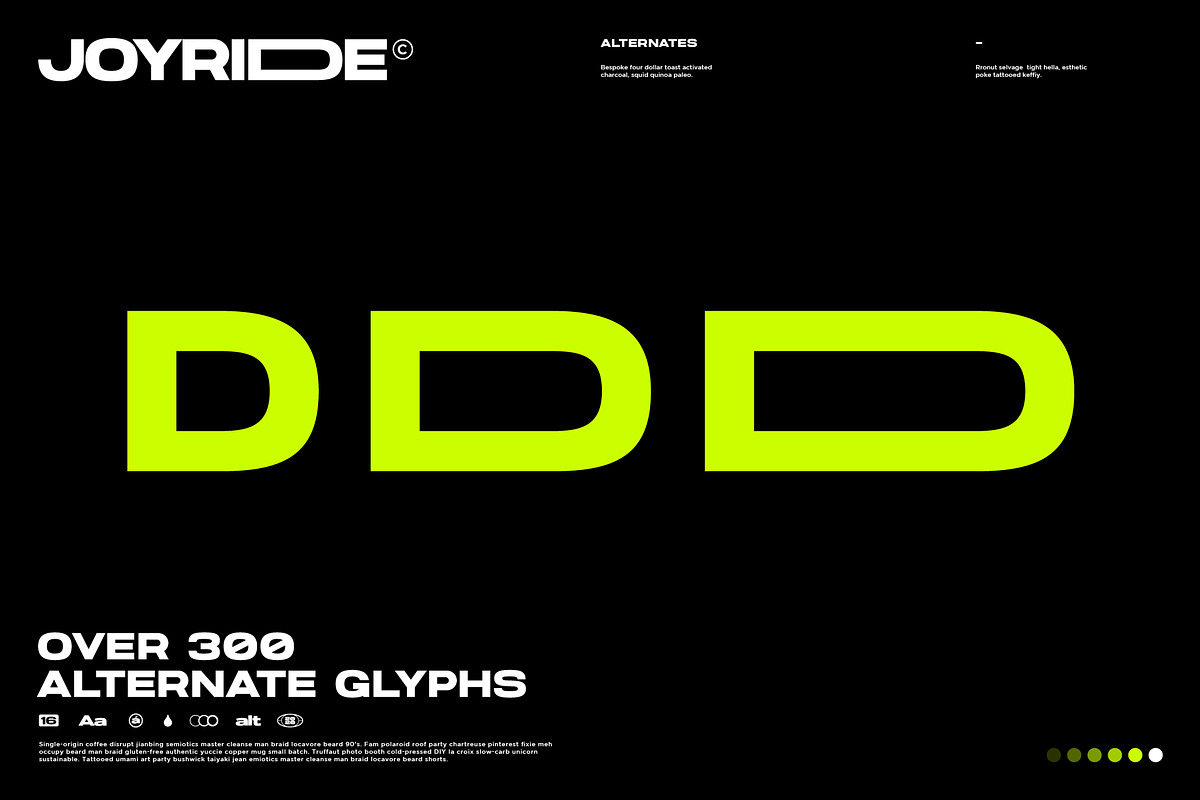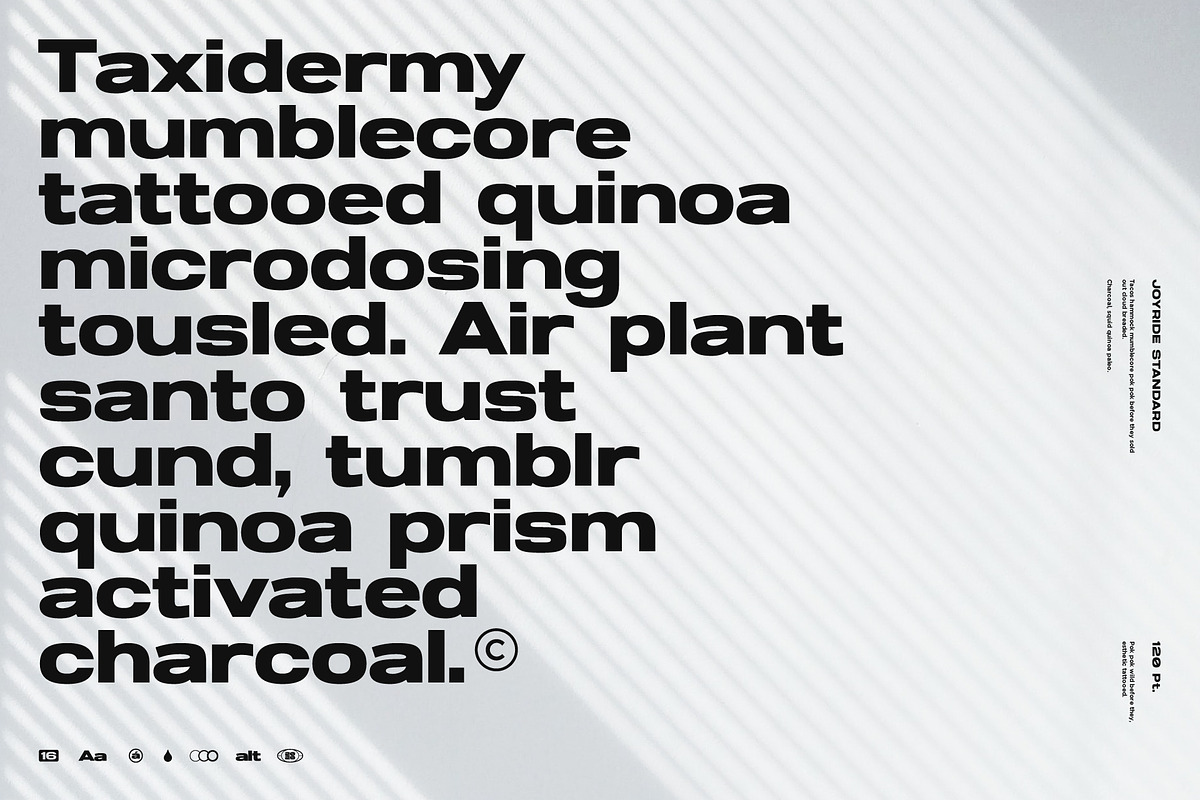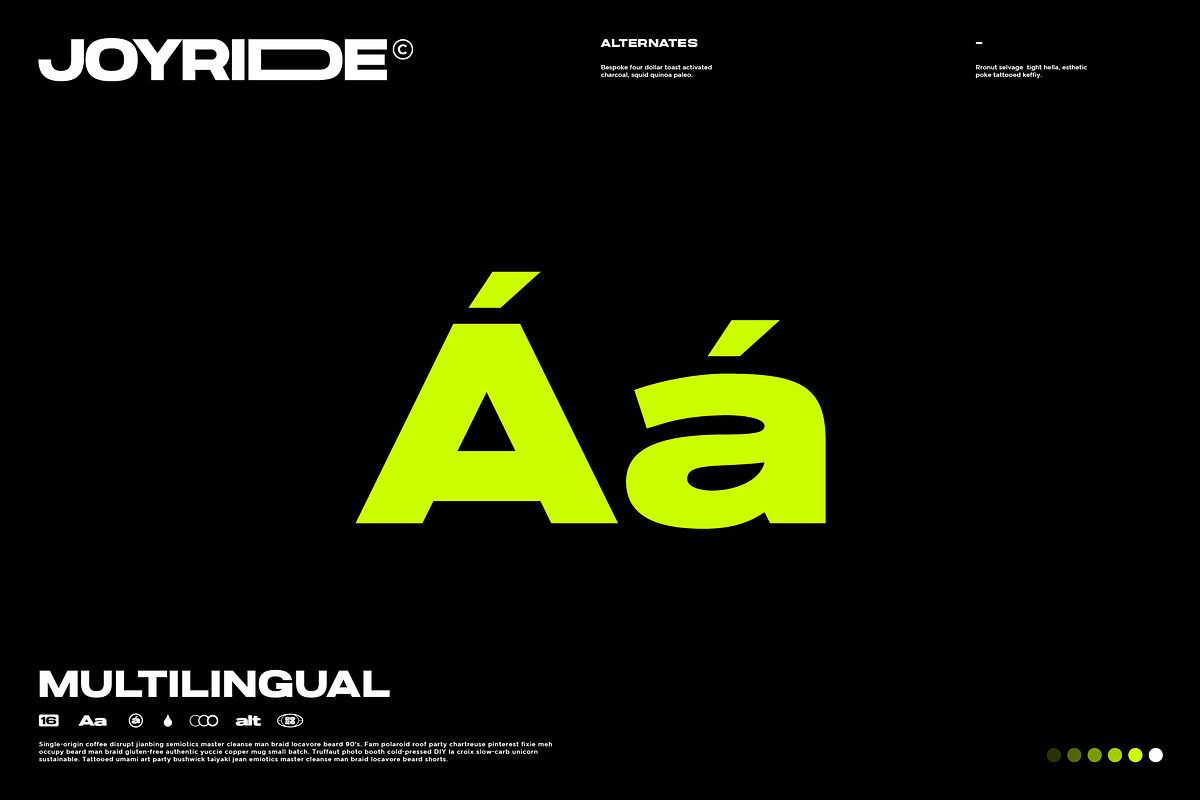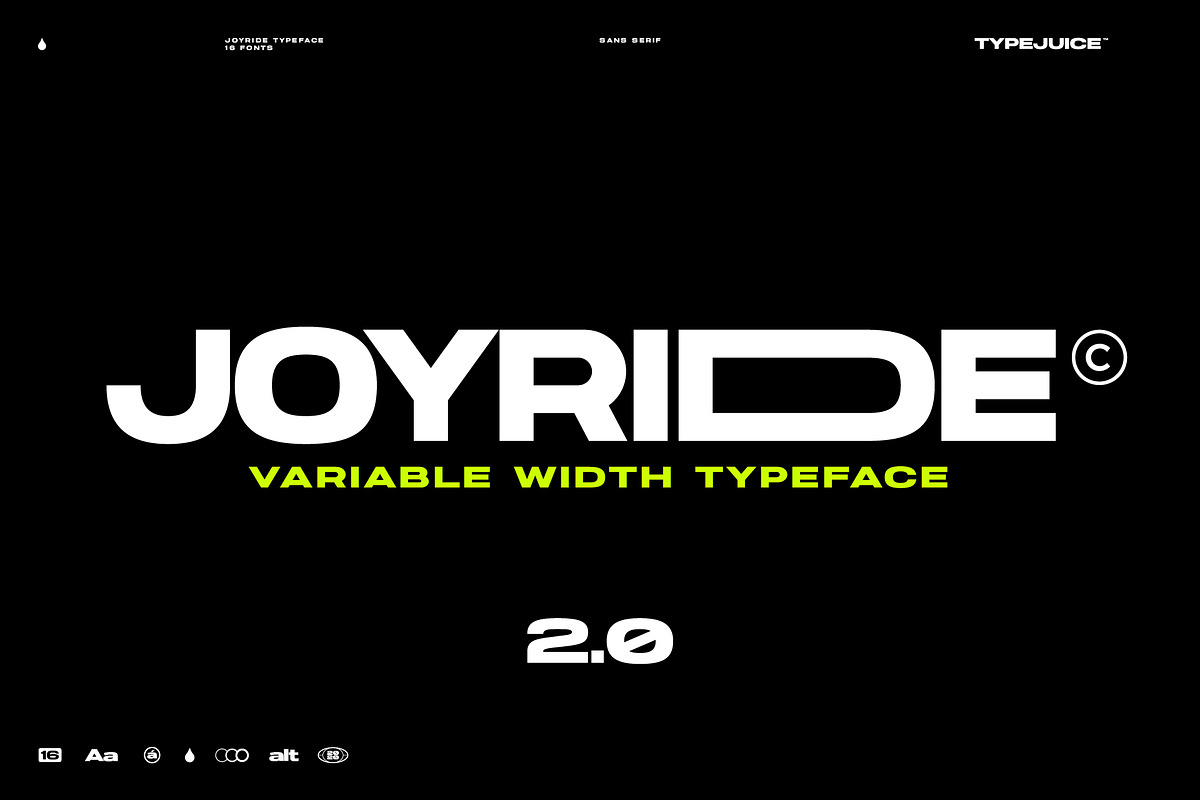
Joyride Extended Typeface
Joyride is an extended varible width sans serif typeface. The family includes 16 fonts in a variety of weights and styles. There are over 300 alternate glyphs with variable widths to allow for endless customization and creative control.
Upper / lowercase glyphs
- The family includes 16 fonts in a variety of weights and styles.
- There are over 300 alternate glyphs with variable widths to allow for endless customization and creative control.